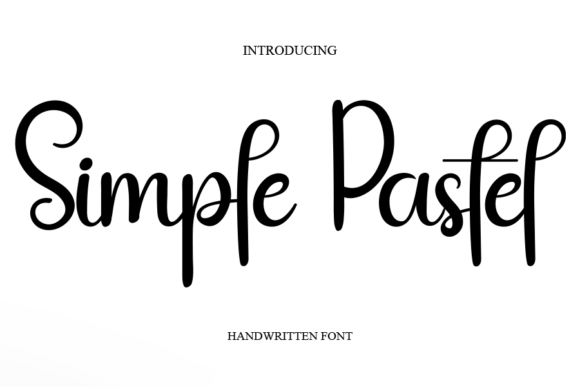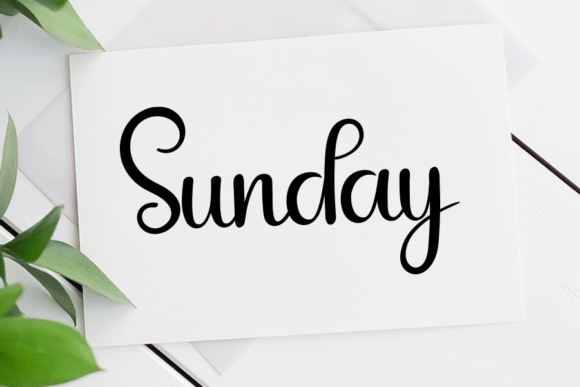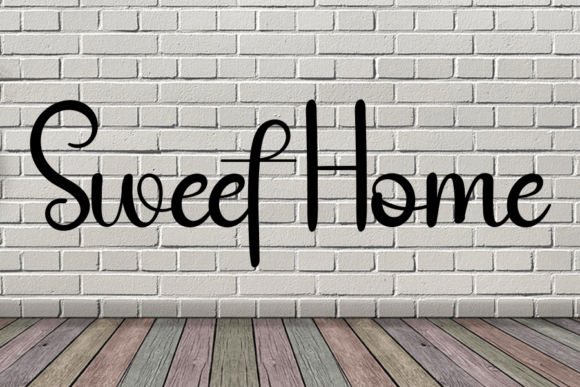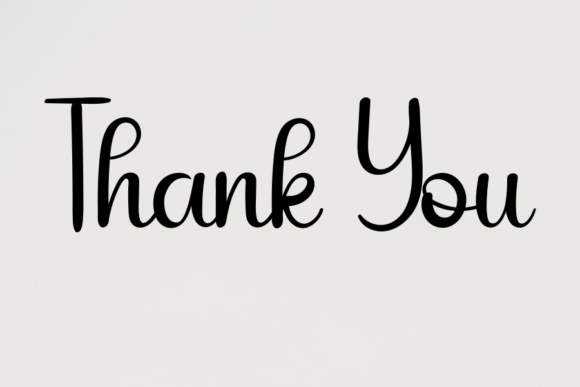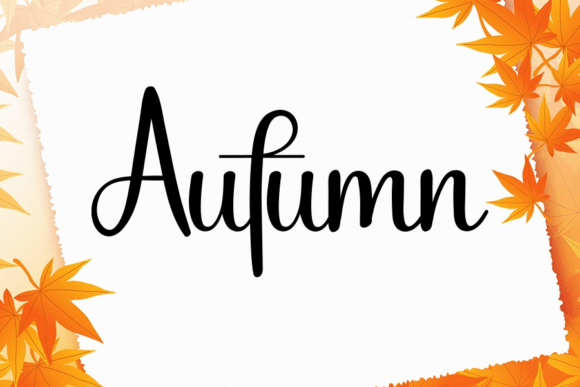
Simple Pastel Font
Simple Pastel Font Download – Casual Neat Handwritten Script
The Simple Pastel Font download is a casual handwritten script that combines neat strokes with playful charm. With its friendly rhythm and stylish look, this font is perfect for both personal and professional projects. Because of its balanced design, it adapts well to stationery, logos, and creative branding.
Casual and Neat Handwritten Style
Simple Pastel brings a smooth, handwritten flow that feels approachable. As a result, it adds warmth to any design. In addition, its neat character shapes ensure text remains clear and versatile across projects.
Perfect for Invitations and Love Letters
Wedding invitations, personal letters, and greeting cards shine with this font. It brings a heartfelt, romantic mood that makes your words feel more meaningful. Therefore, it is an excellent choice for stationery and personal design projects.
Simple Pastel Font Download for Posters and Logos
The Simple Pastel Font download is also perfect for posters, branding, and logo design. Its casual elegance makes brands look stylish and modern. At the same time, its neat strokes ensure clarity across both print and digital platforms.
Versatility for DIY and Creative Projects
From stickers and craft projects to social media graphics, this font adapts easily. In addition, it works across a variety of mediums, making it a valuable tool for designers who want flexibility.
Readability and Design Balance
Unlike some decorative fonts that sacrifice readability, Simple Pastel maintains a clear structure. As a result, it is effective for both titles and supporting text, ensuring your projects remain stylish and professional.
Why Add This Script Typeface to Your Collection?
The Simple Pastel Font download is fun, flexible, and easy to use. In other words, it works for personal creations, professional branding, and romantic stationery alike. Finally, it is a handwritten script that adds charm, personality, and warmth to every design.